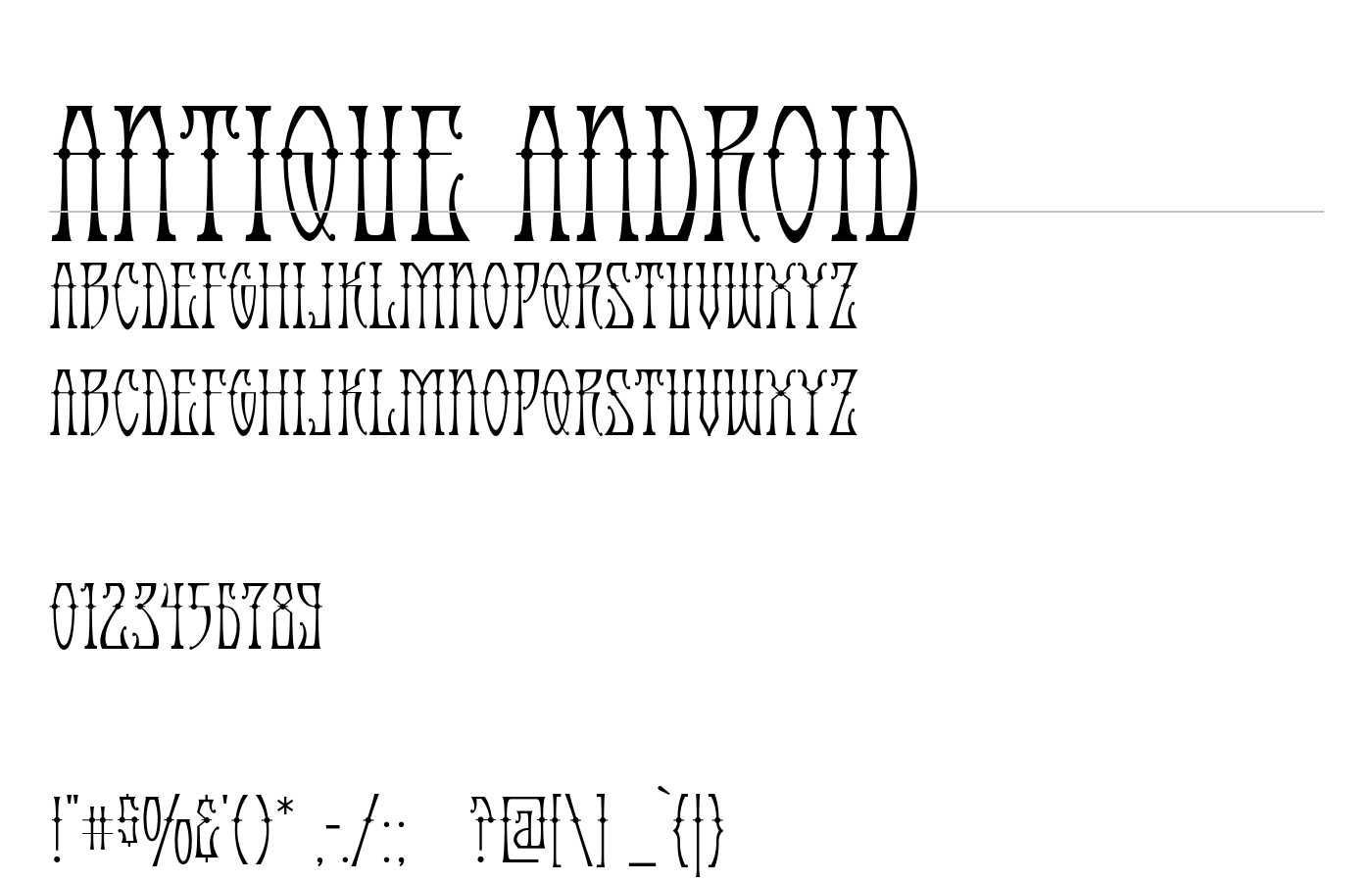
Antique Android is a tall, condensed serif font with a unique blend of vintage charm and modern quirkiness. Its high contrast between thin strokes and thicker serifs, combined with intricate details like diamond-shaped ornaments on the vertical stems, gives it an elegant yet playful character perfect for eye-catching headlines, posters, or branding that seeks a distinctive, retro-futuristic vibe. This font works well in creative contexts where style and personality are key, adding a memorable touch without overwhelming the design.
Antique Android Font
About Antique Android Font